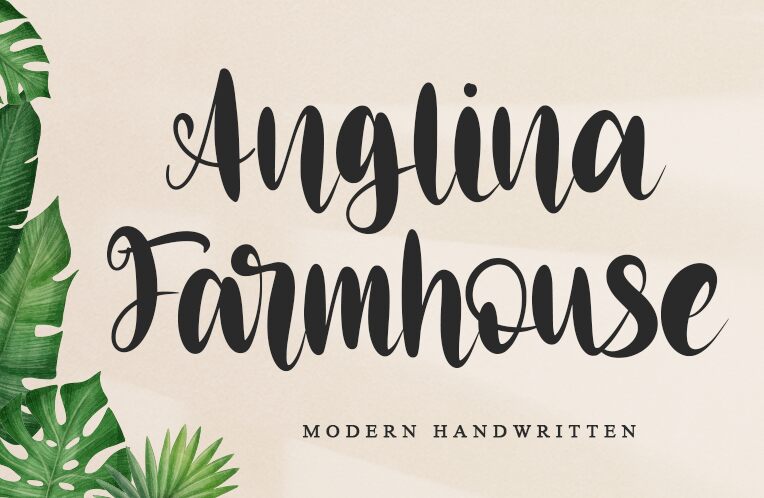
Anglina Farmhouse, crafted by the notable font designer Letterara, stands out with its brush style and semi-bold weight that exudes a sense of rustic charm and contemporary flair. This font's fluidity captures the essence of artisanal hand-lettering, infusing each character with an organic, personal touch. The semi-bold weight adds just the right amount of emphasis without overwhelming the text's natural flow.
The aesthetic appeal of Anglina Farmhouse lies in its balance between elegance and casual sophistication, making it an excellent choice for a variety of creative projects. Whether it’s for branding materials, product packaging, or expressive graphics, this font brings a warm and inviting atmosphere to any design.
Its suitability spans across digital and print mediums alike; from social media graphics to wedding invitations or home decor signage, Anglina Farmhouse's versatility shines through. Embrace the handmade quality that Anglina Farmhouse offers and let your creative endeavors tell a story that is both visually striking and heartwarmingly authentic.